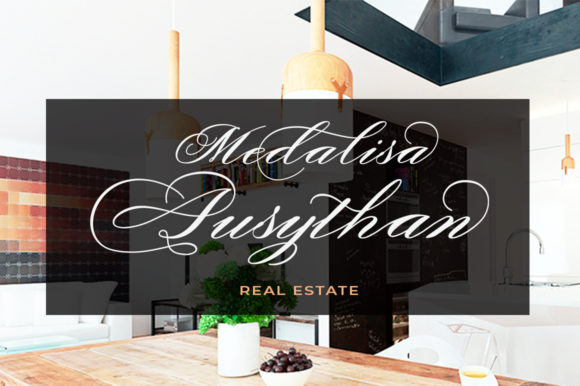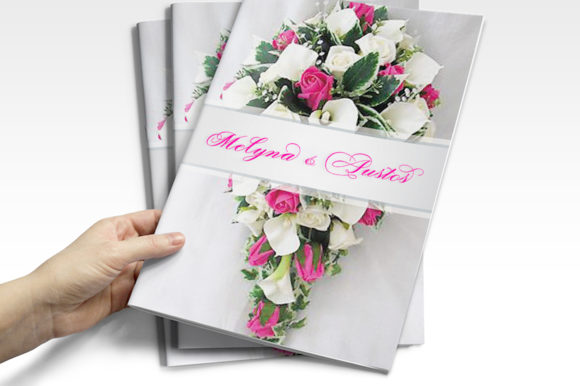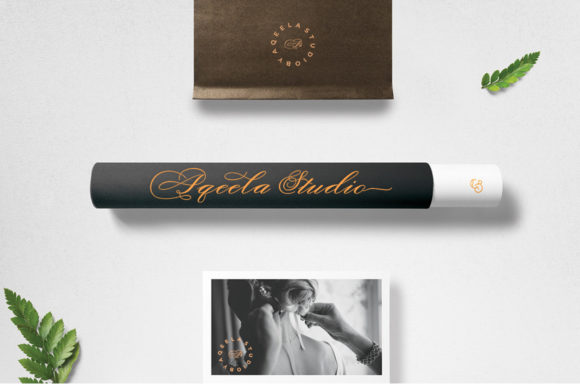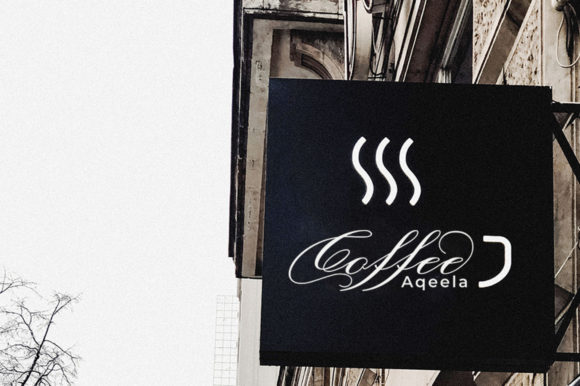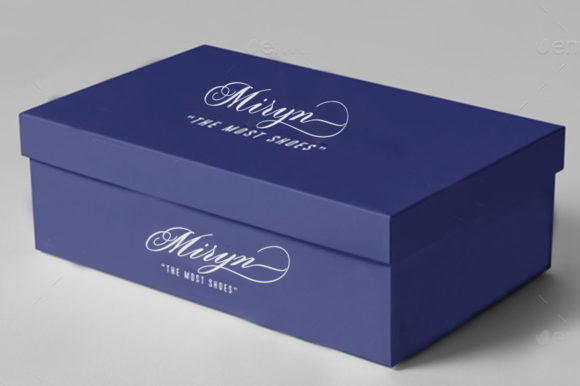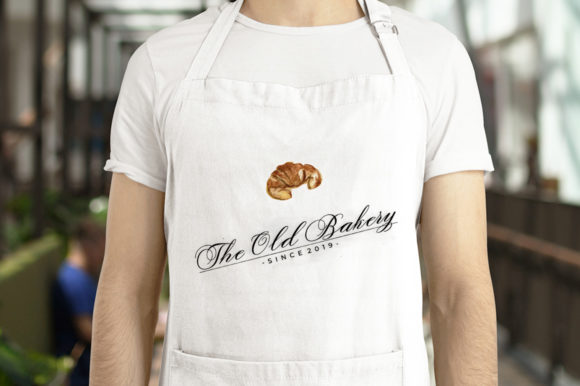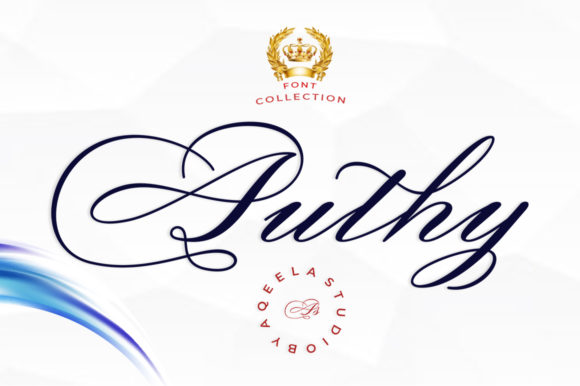
Introducing the Elegant Authy Font: A Perfect Blend of Copperplate Calligraphy and Hand-Lettering
Are you a designer or crafter looking for a font that exudes elegance and sophistication? Look no further than the Authy Font. This lovely calligraphy font is a masterful blend of copperplate calligraphy and hand-lettering styles, resulting in a unique and captivating typeface that is sure to elevate your designs.
The Inspiration Behind Authy Font
The Authy Font was designed to convey a sense of elegance and refinement. Its classic style is reminiscent of traditional copperplate calligraphy, with its smooth, clean lines and precise letterforms. At the same time, the font also incorporates elements of hand-lettering, giving it a more personal and organic feel.
Key Features of Authy Font
So, what sets the Authy Font apart from other calligraphy fonts? Here are just a few of its key features:
- Amazing Alternates: The Authy Font comes with a range of alternate characters, allowing you to add variety and interest to your designs.
- Elegant Style: The font’s classic style is perfect for formal designs, such as invitations, labels, and stationery.
- Feminine and Sensual: The Authy Font has a distinctly feminine and sensual feel, making it ideal for designs related to fashion, beauty, and romance.
- Smooth and Clean: The font’s smooth, clean lines make it easy to read and visually appealing.
Uses for Authy Font
The Authy Font is incredibly versatile, and can be used in a wide range of design applications. Here are just a few ideas to get you started:
- Invitations: Use the Authy Font to create beautiful, formal invitations for weddings, parties, and other special occasions.
- Labels and Packaging: The font’s elegant style makes it perfect for labels, packaging, and branding.
- Stationery: Create stunning stationery, including letterheads, notecards, and journals, using the Authy Font.
- Fashion and Beauty: The font’s feminine and sensual style makes it ideal for designs related to fashion, beauty, and romance.
- Romantic Novels and Magazines: Use the Authy Font to add a touch of elegance and sophistication to your romantic novels, magazines, and other publications.
- Greeting and Wedding Cards: Create beautiful, heartfelt greeting and wedding cards using the Authy Font.
Why Choose Authy Font?
So, why should you choose the Authy Font for your design projects? Here are just a few reasons:
- Unique and Elegant: The Authy Font is a unique and elegant typeface that will set your designs apart from the crowd.
- High-Quality: The font is of exceptionally high quality, with smooth, clean lines and precise letterforms.
- Versatile: The Authy Font can be used in a wide range of design applications, from formal invitations to romantic novels.
- Feminine and Sensual: The font’s feminine and sensual style makes it perfect for designs related to fashion, beauty, and romance.
In conclusion, the Authy Font is a stunning calligraphy font that is perfect for designers and crafters looking to add a touch of elegance and sophistication to their designs. With its unique blend of copperplate calligraphy and hand-lettering styles, amazing alternates, and elegant style, this font is sure to become a favorite in your design arsenal. So why wait? Download the Authy Font today and start creating beautiful, eye-catching designs that will leave a lasting impression.